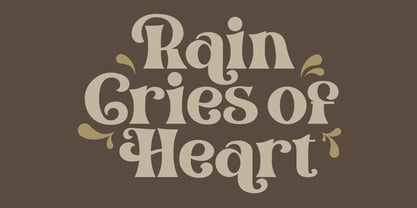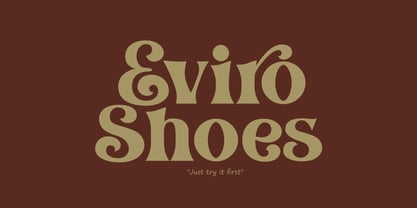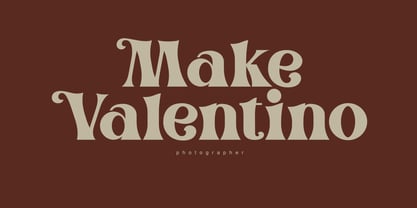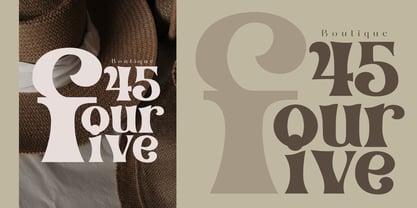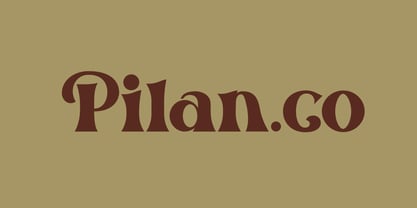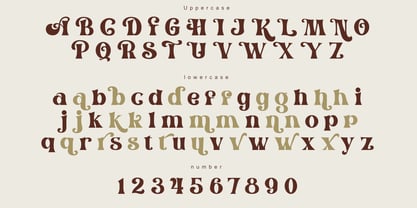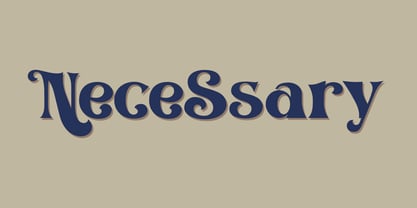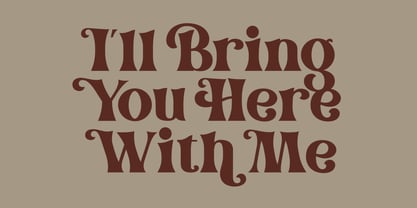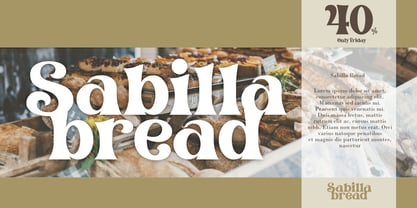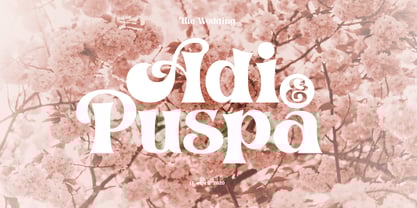
Alpan
by Khoir
The Alpan Font Family was designed by Muhammad Romzul Khoir and published by Khoir. Alpan contains 1 styles. More about this family
The Alpan fonts are inspired by 60's style that has a unique shape, here aplan appears more elegant but does not eliminate its unique value, has several alternative fonts that make it look more unique and pleasing to the eye.
• Uppercase Characters
• Lowercase Characters
• Alternates font